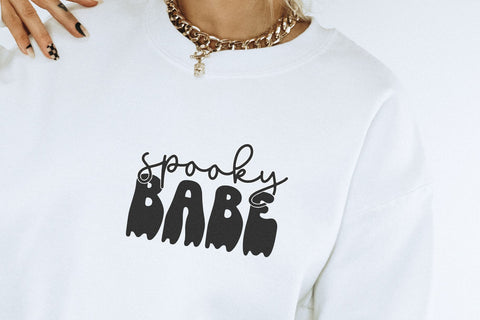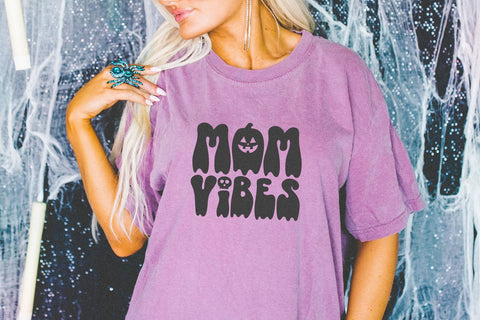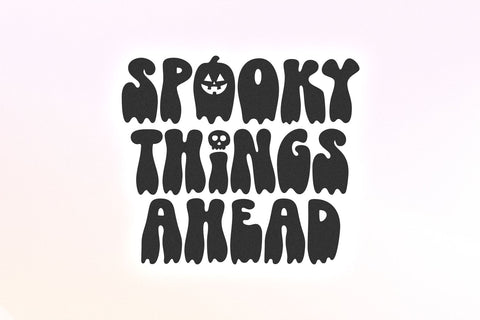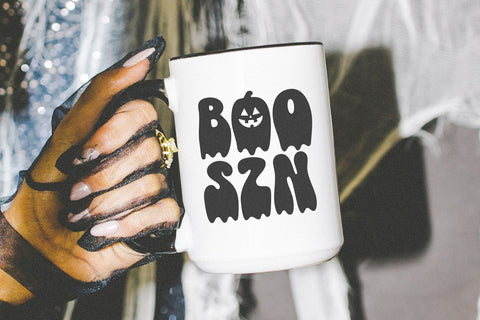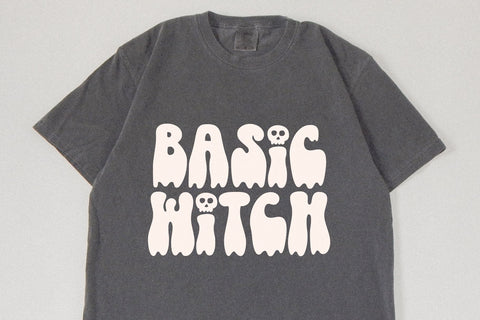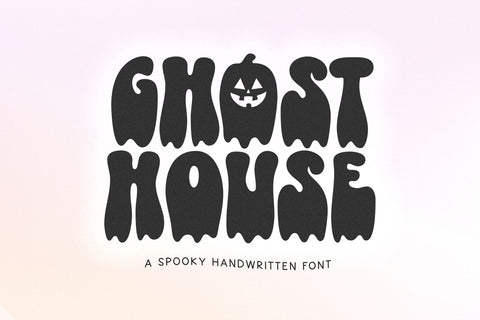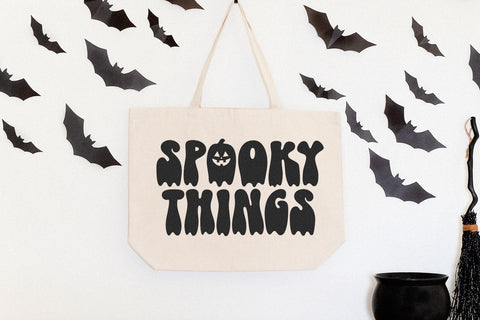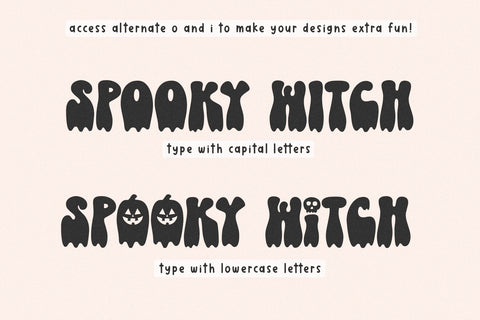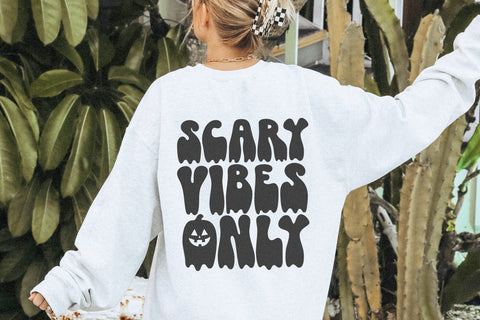
Ghost House - Retro Drip Halloween Font
Ghost House is a spooky halloween font with a dripping effect!
This is an all caps font.
This font is perfect for your cricut projects, shirts, retro designs, halloween invitations, mugs, stickers, teachers, goodnotes and more!
Use lowercase letters to access pumpkin and skull - o, i